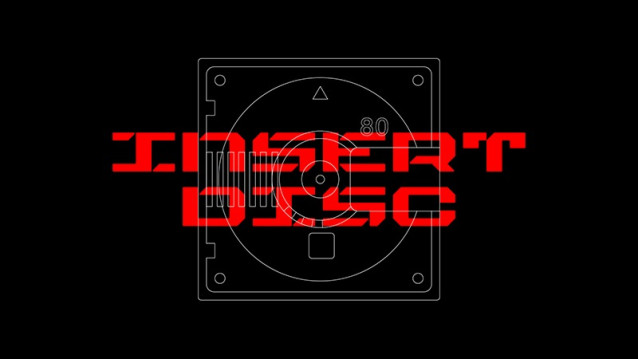
Monowire Font is a simple and modern display font suitable for quotes, logos, headings, titles, and many more. Use it on any of your creative projects, and your designs will become outstanding!
Monowire Font